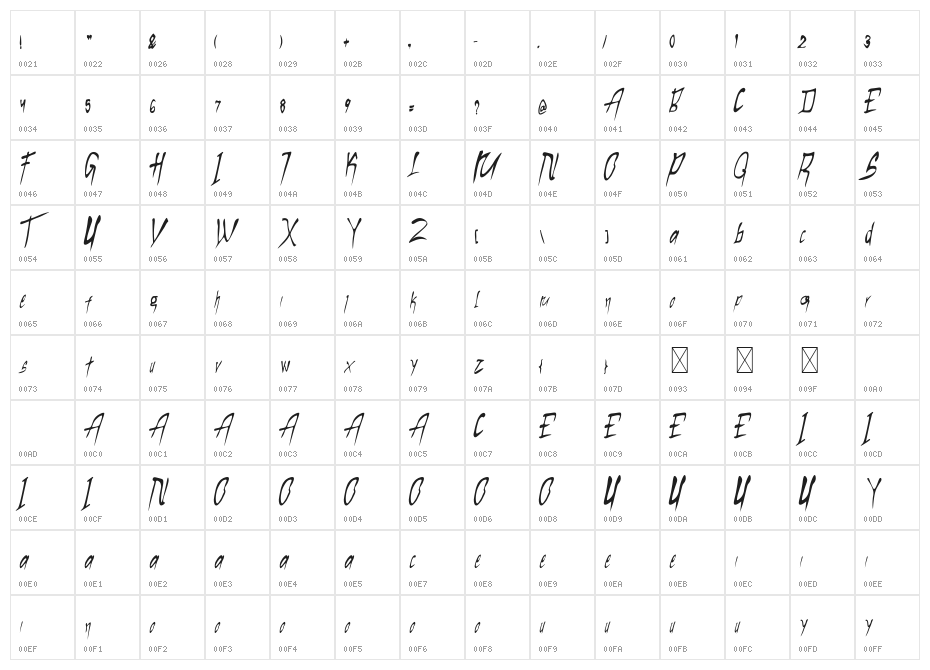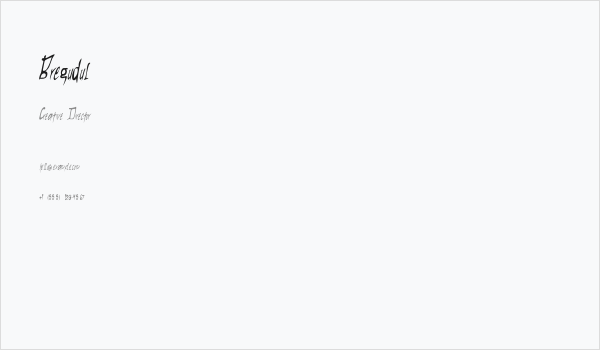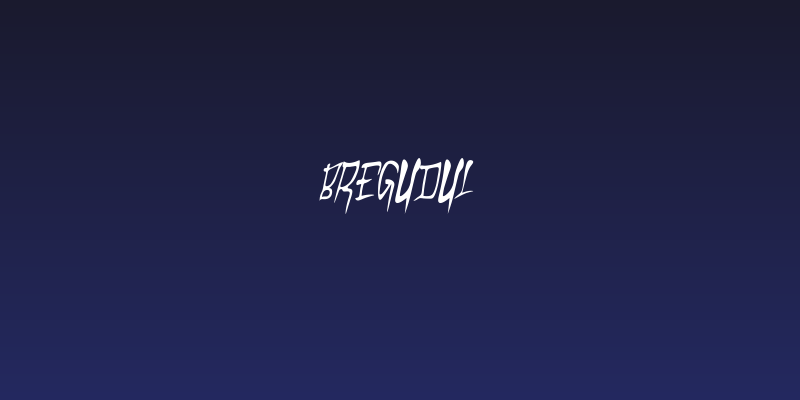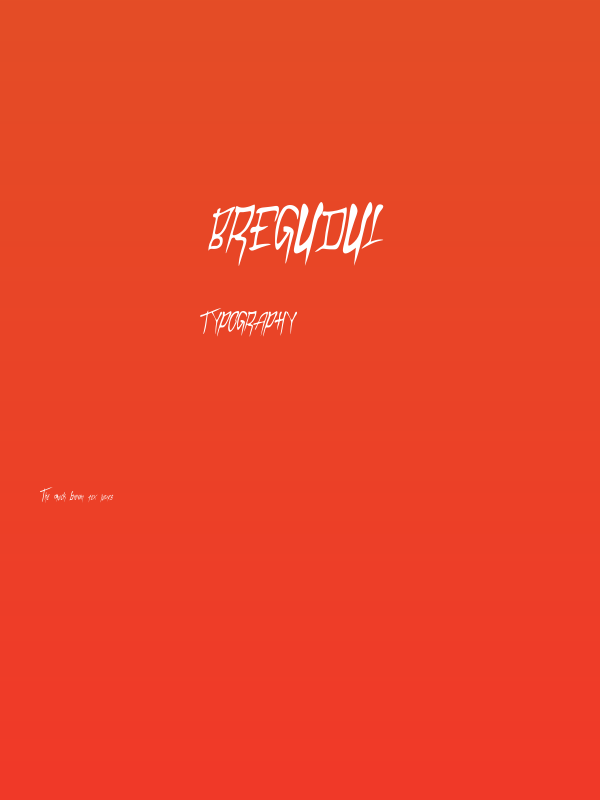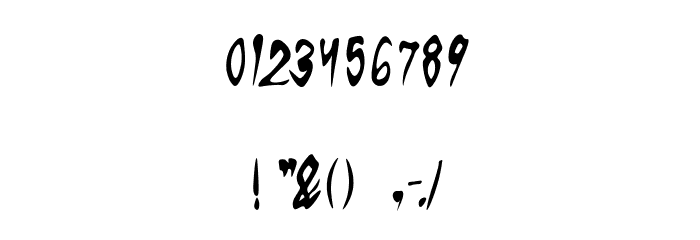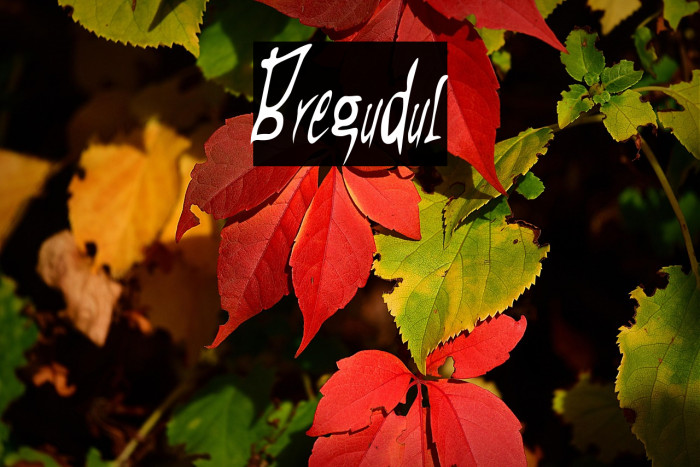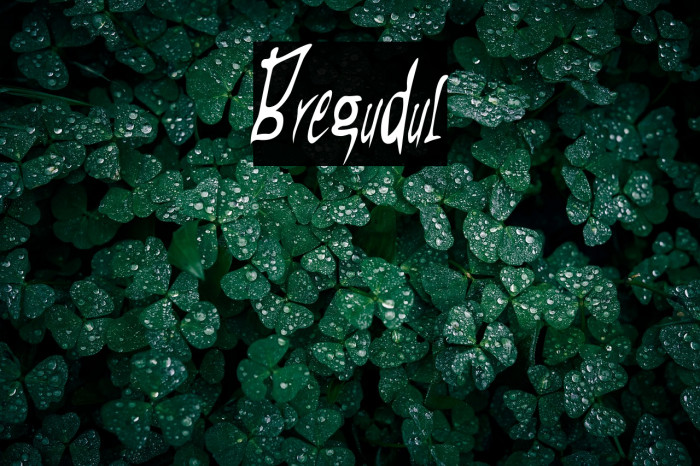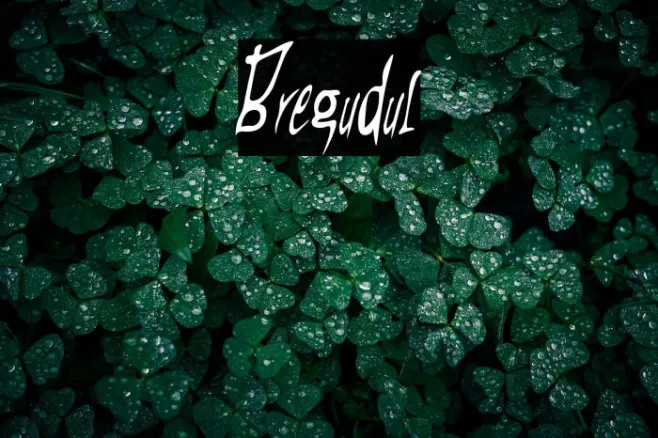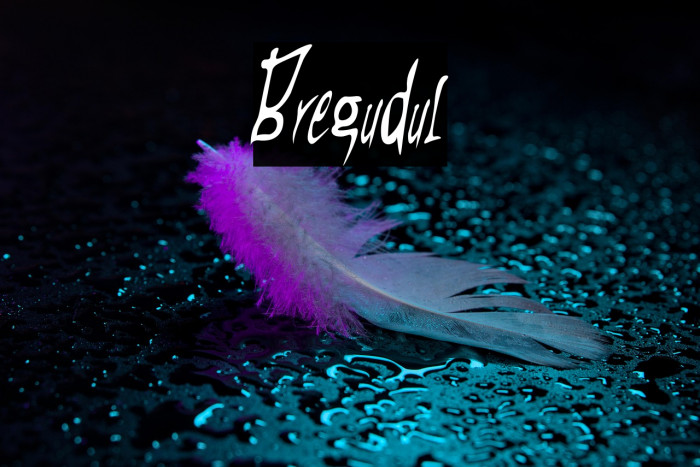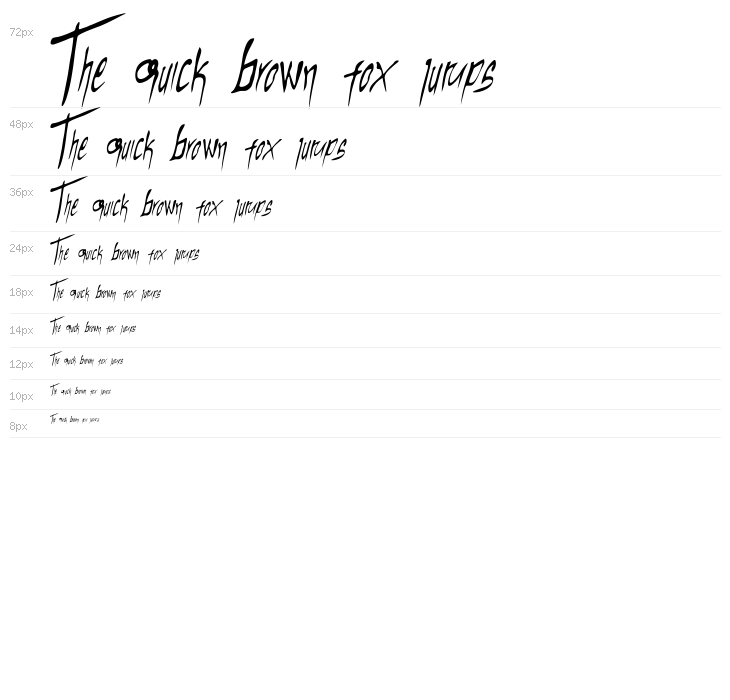
Bregudul Font
Bregudul Description
This font features a dynamic and edgy style, characterized by sharp, elongated strokes and a sense of movement. The uppercase letters are particularly striking, with exaggerated angles and a slightly aggressive flair. The lowercase letters maintain this energetic style but with a more compact form. Numbers and special characters follow the same aesthetic, ensuring consistency throughout. The overall appearance is bold and eye-catching, making it suitable for projects that require a strong visual impact.
| Use Case | Logos, Posters, Headlines |
| Proposed Projects | Ideal for music album covers, skateboarding brands, graffiti art, or any project needing a rebellious and energetic vibe. |